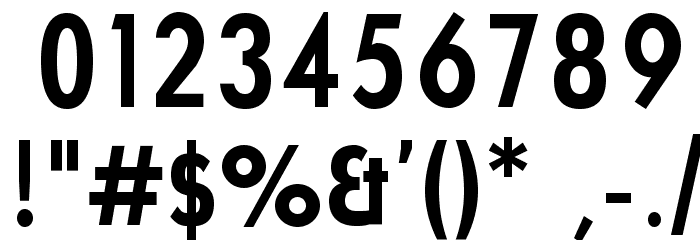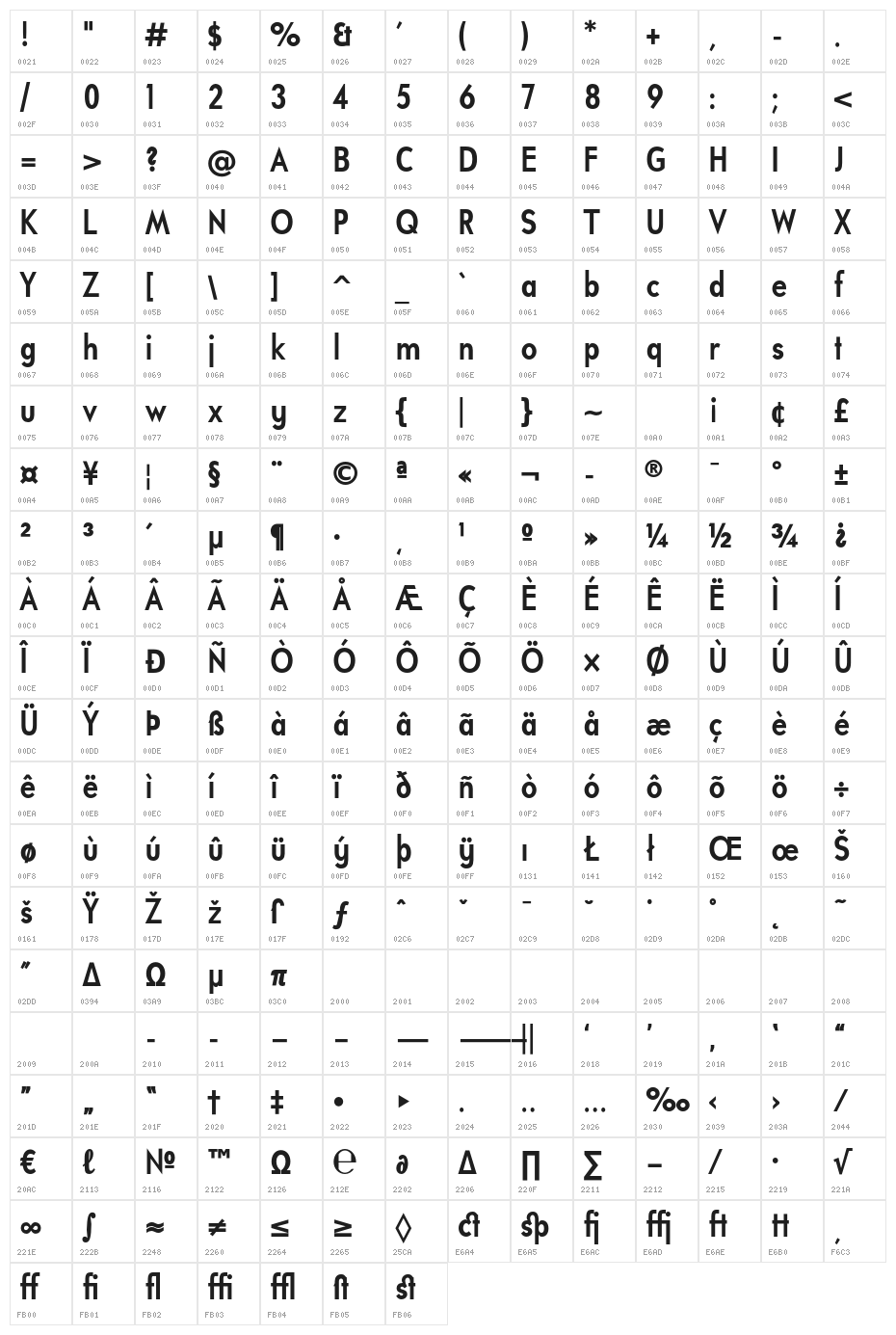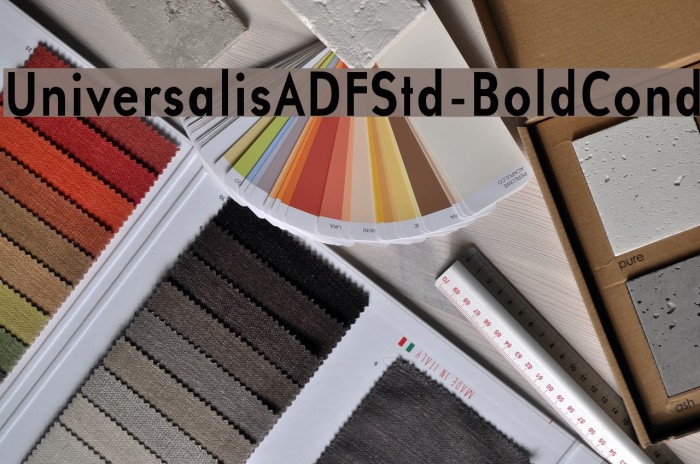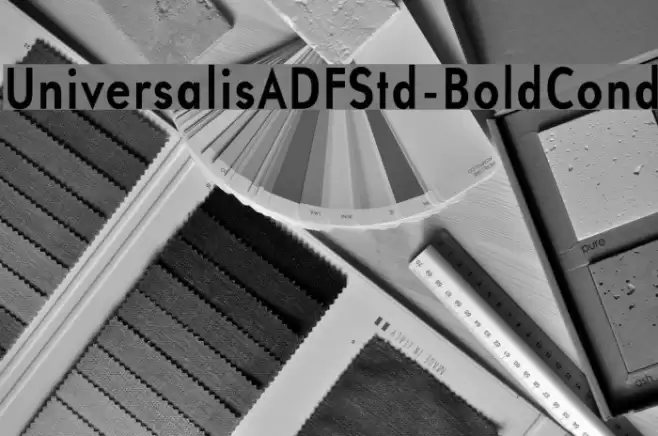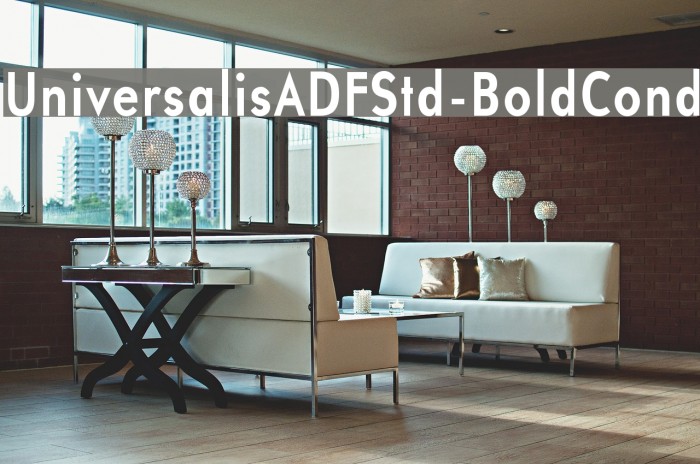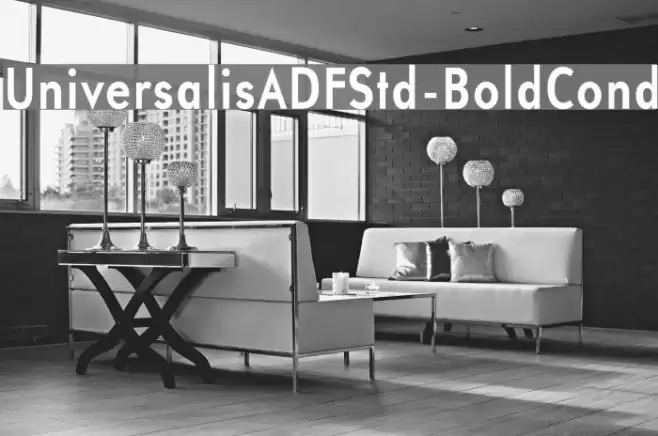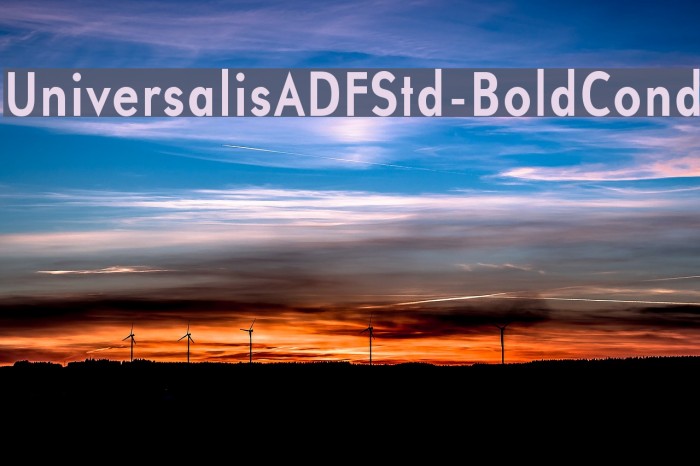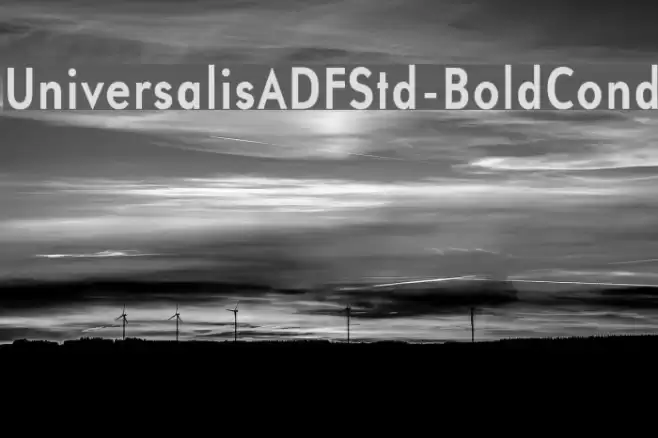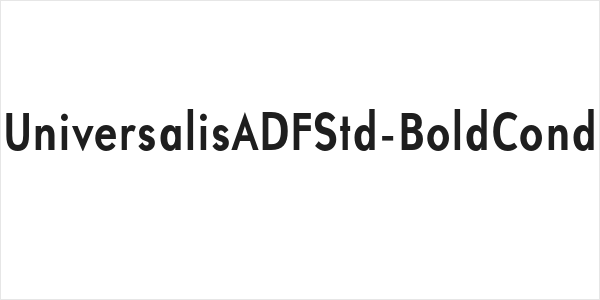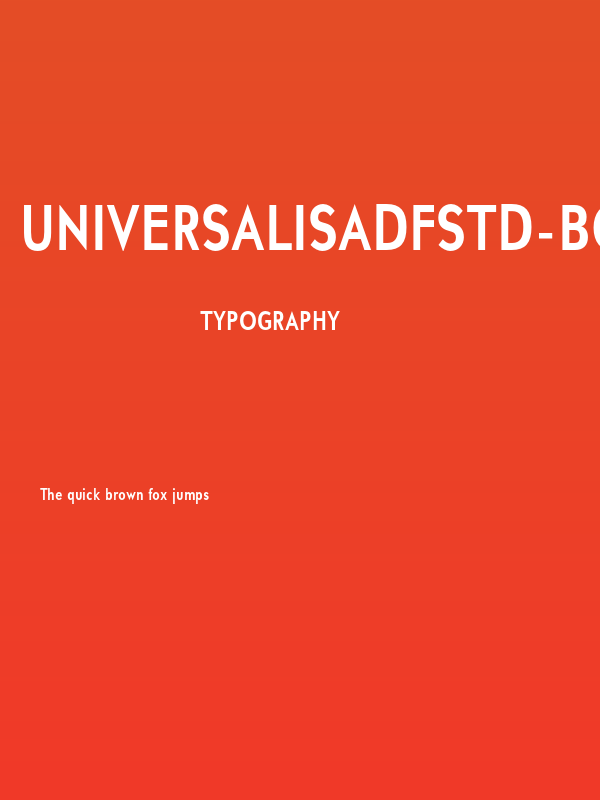
UniversalisADFStd-BoldCond Font
UniversalisADFStd-BoldCond Description
This font exhibits a bold and confident style with clean, straight lines and a modern aesthetic. The uppercase and lowercase letters are well-proportioned, offering a sense of balance and clarity. The numerals are distinct and easy to read, making them suitable for various applications. Special characters are included, providing versatility for different types of content. The overall design is straightforward yet impactful, making it an excellent choice for projects that require a strong visual presence.
| Use Case | Headlines, Logos, Advertising |
| Proposed Projects | Ideal for branding, advertising, headlines, and digital content where a bold statement is needed. |